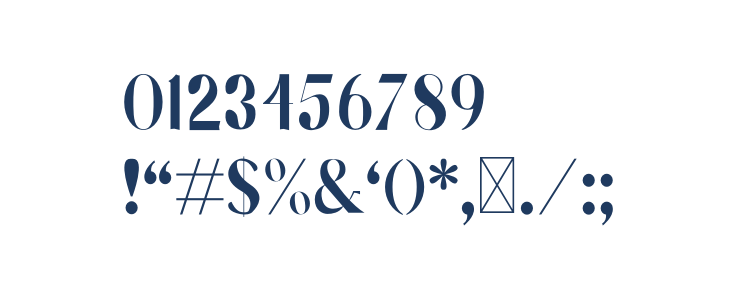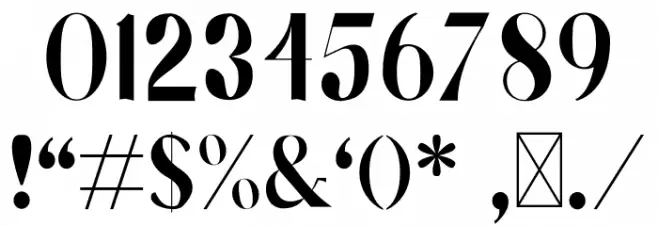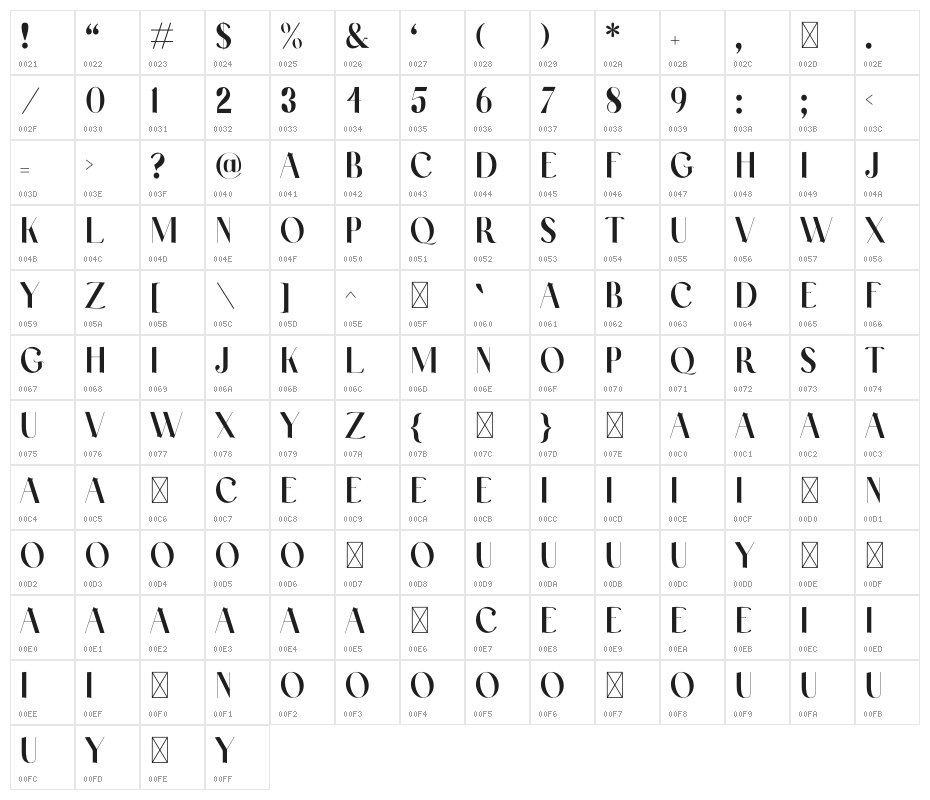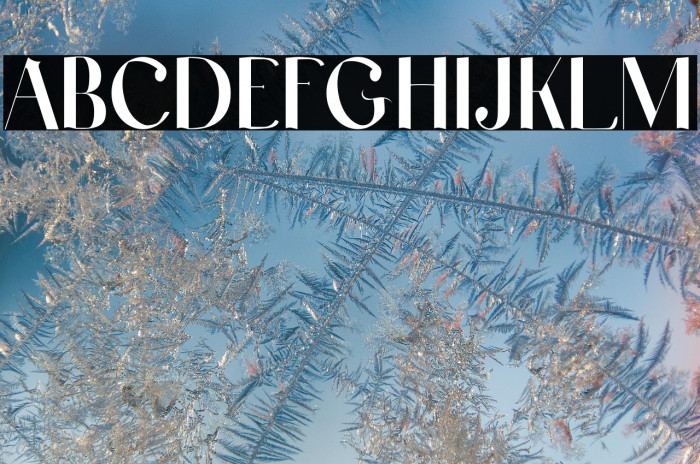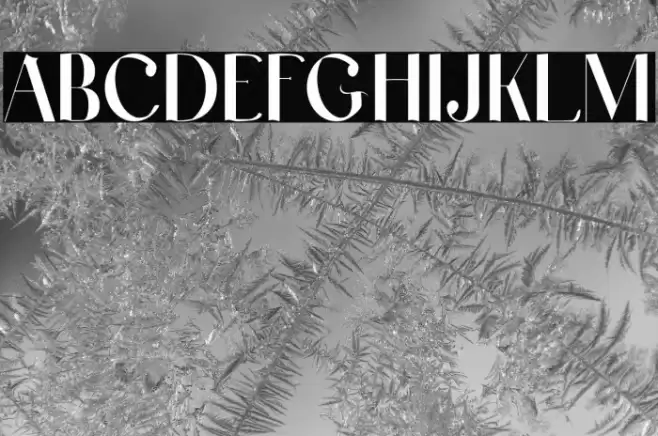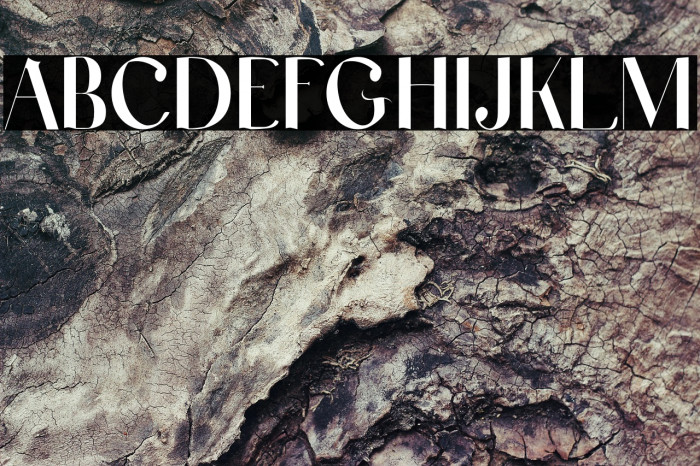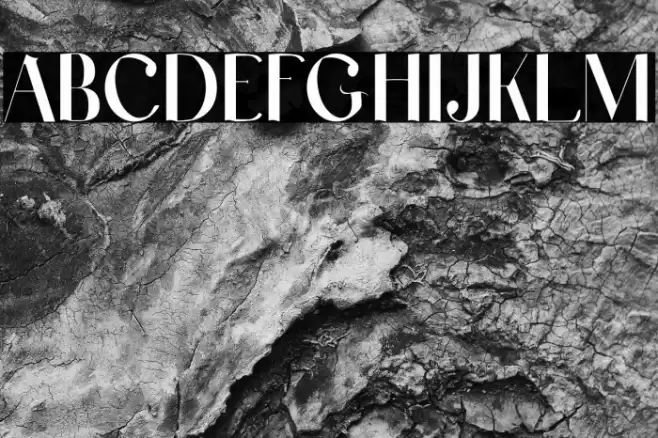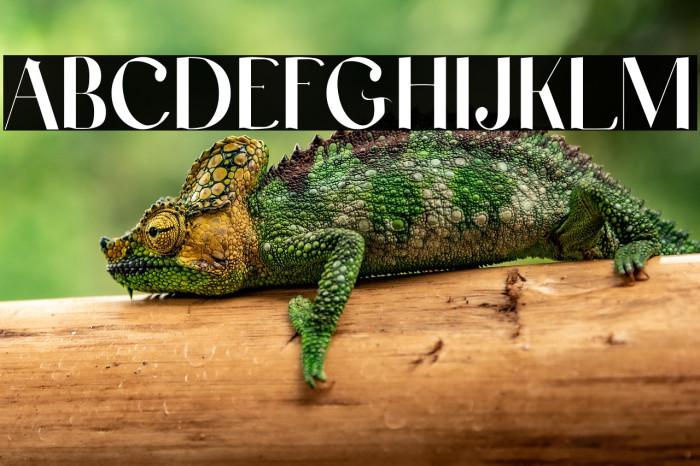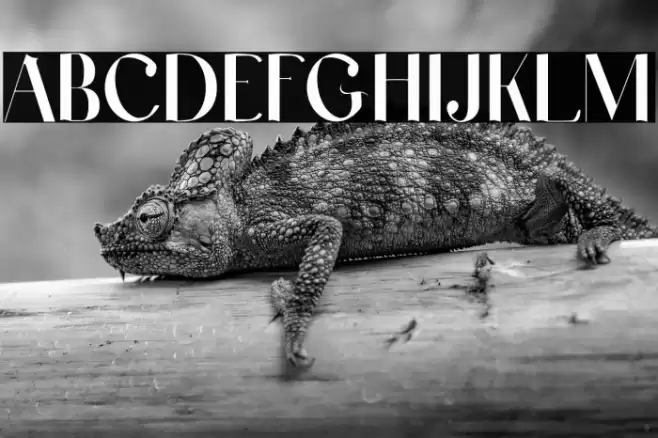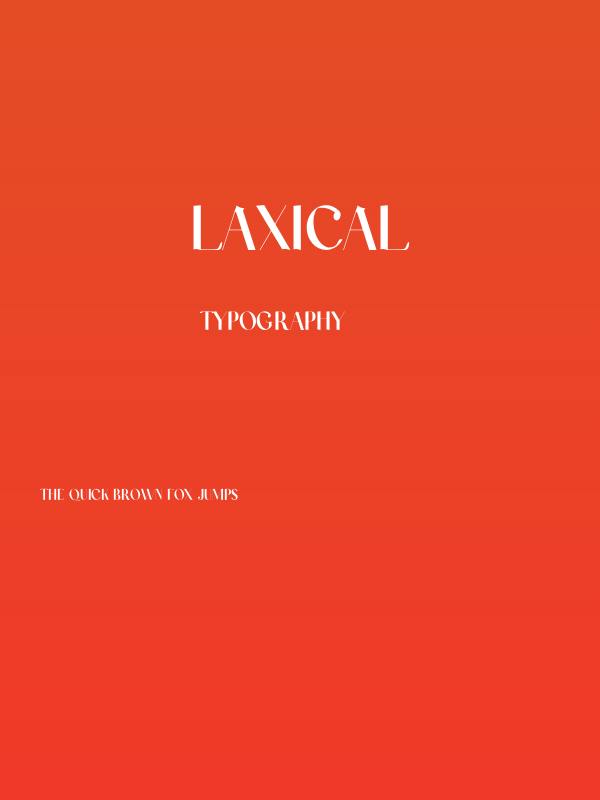
Laxical Font
Laxical Description
This font features a striking and elegant design with high contrast between thick and thin strokes, creating a dynamic and sophisticated appearance. The characters are slightly condensed, giving it a modern and sleek look. The uppercase letters are particularly bold and commanding, while the lowercase letters maintain a consistent style that complements the overall aesthetic. The numbers are distinct and clear, making them easily readable. Special characters are designed with the same attention to detail, ensuring a cohesive and polished appearance across all elements.
| Overall Style | Elegant and modern |
| Use Case | Headlines, Logos, Branding |
| Proposed Projects | Ideal for luxury branding, fashion magazines, high-end product packaging, and elegant invitations. |